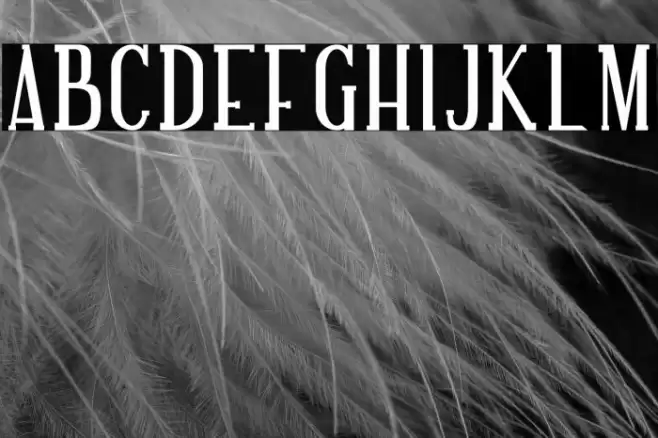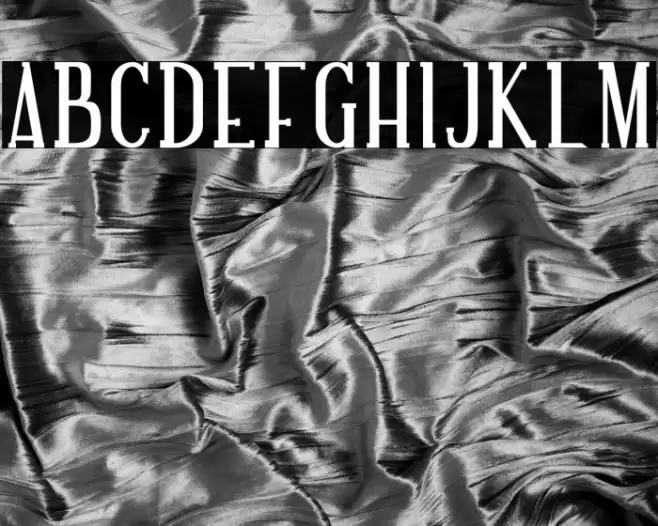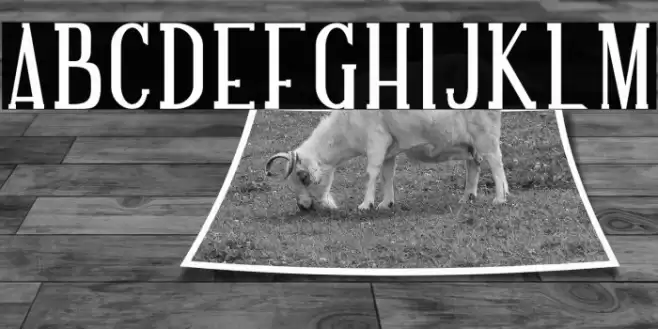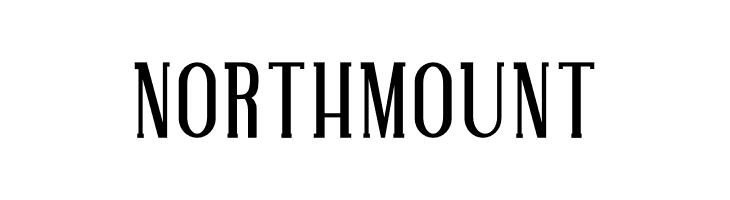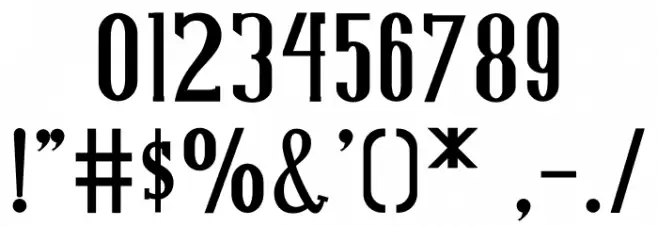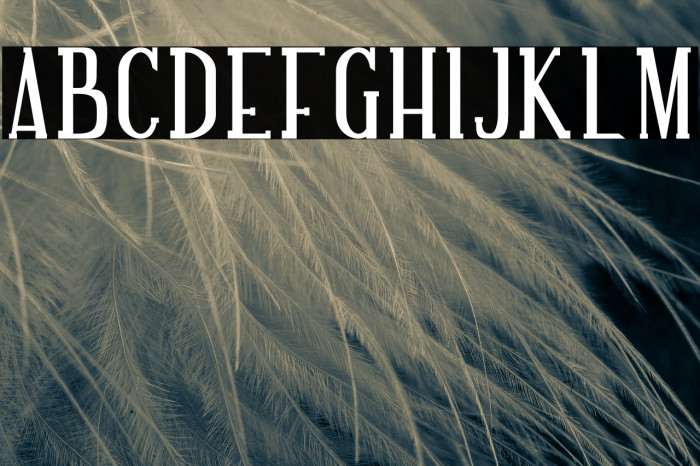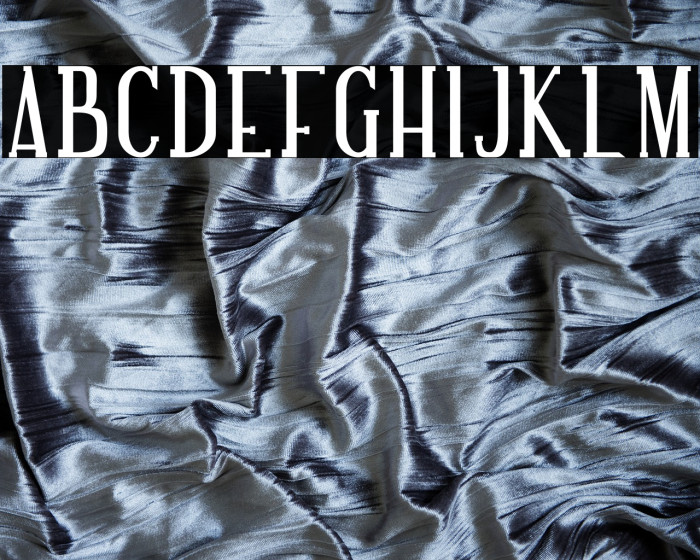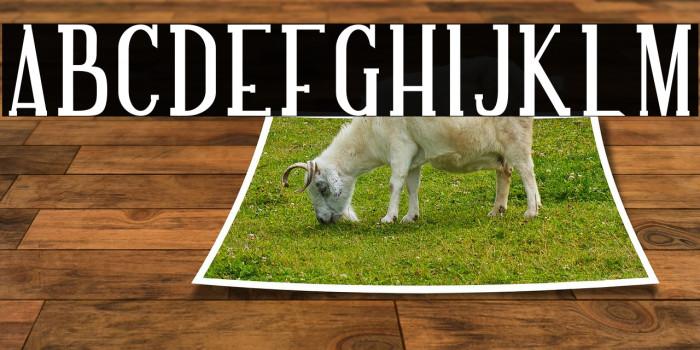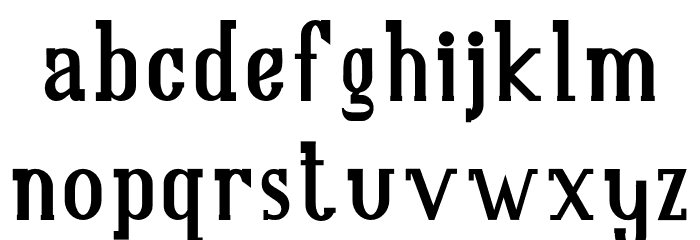
NORTH MOUNT Font
NORTH MOUNT Description
This font features a bold and distinctive style with strong vertical lines and subtle curves, giving it a modern yet classic appearance. The uppercase letters are tall and commanding, while the lowercase letters maintain a consistent height, enhancing readability. The numerals are clear and well-proportioned, making them suitable for various applications. Special characters are designed with the same attention to detail, ensuring they blend seamlessly with the rest of the font. The overall design is both elegant and functional, making it versatile for different uses.
A bold, modern font with strong vertical lines and subtle curves from Uncategorized fonts.
- Proposed Projects: Ideal for branding, headlines, posters, and signage where a strong visual impact is desired.